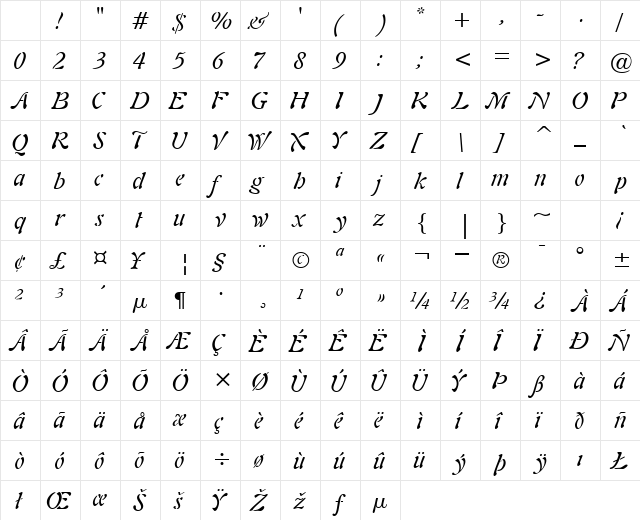
ParielSSK is a composed and adaptable typeface that performs quietly and consistently across a wide range of design contexts. The slanted form adds forward momentum and visual energy.
Pro Tip: Use ParielSSK for emphasis, pull quotes, and subheadings where its slanted energy can add rhythm to the layout.